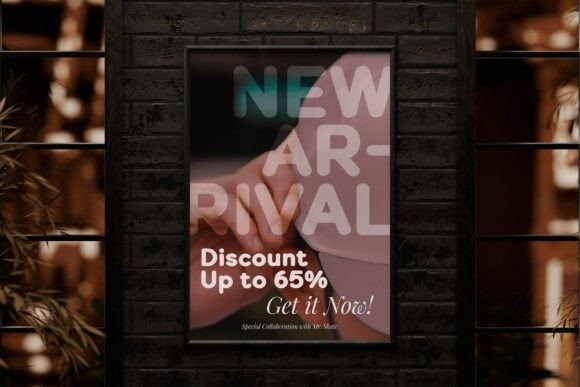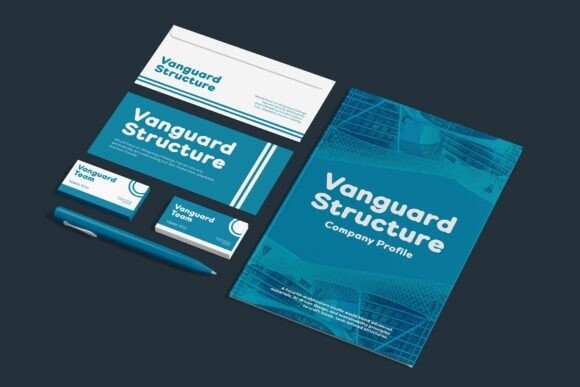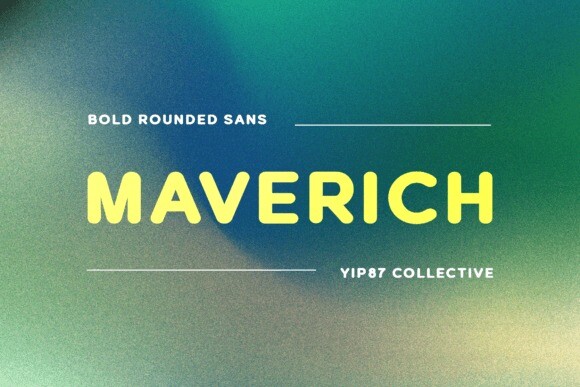
Maverich Font
Maverich Font is a stylish and modern rounded bold sans-serif typeface. With its bold appearance, Maverich Font is ideal for creating eye-catching headlines and graphic designs.
This typeface is suitable for various design projects such as branding, packaging, advertising, and more. Its modern design and expanded style make it a standout choice for designers looking to add boldness to their designs. Elevate your branding design projects with Maverich Font today.